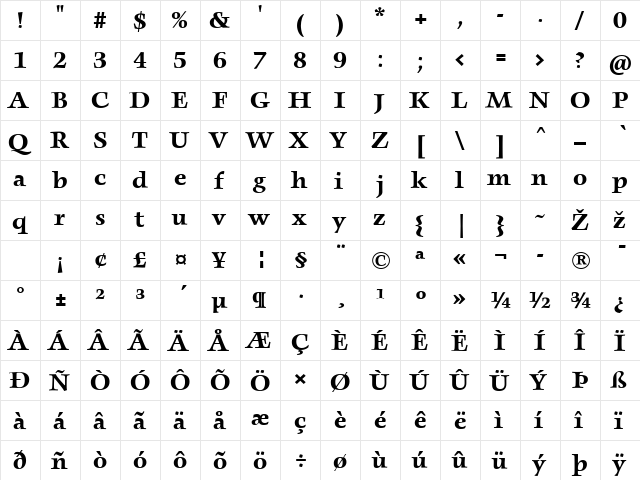
AngkoonTF-Bold Regular Font Preview
AngkoonTF-Bold Regular
AngkoonTF-Bold Regular Font Details
| Foundry | Xavier Dupre, published by FontShop International for the FontFont Library |
| Designer | Xavier Dupre |
Design Context for AngkoonTF-Bold Typeface
AngkoonTF-Bold takes a measured approach to typography — its balanced proportions and neutral character make it a reliable workhorse for both digital and print work. The heavy weight commands attention and anchors typographic hierarchies.